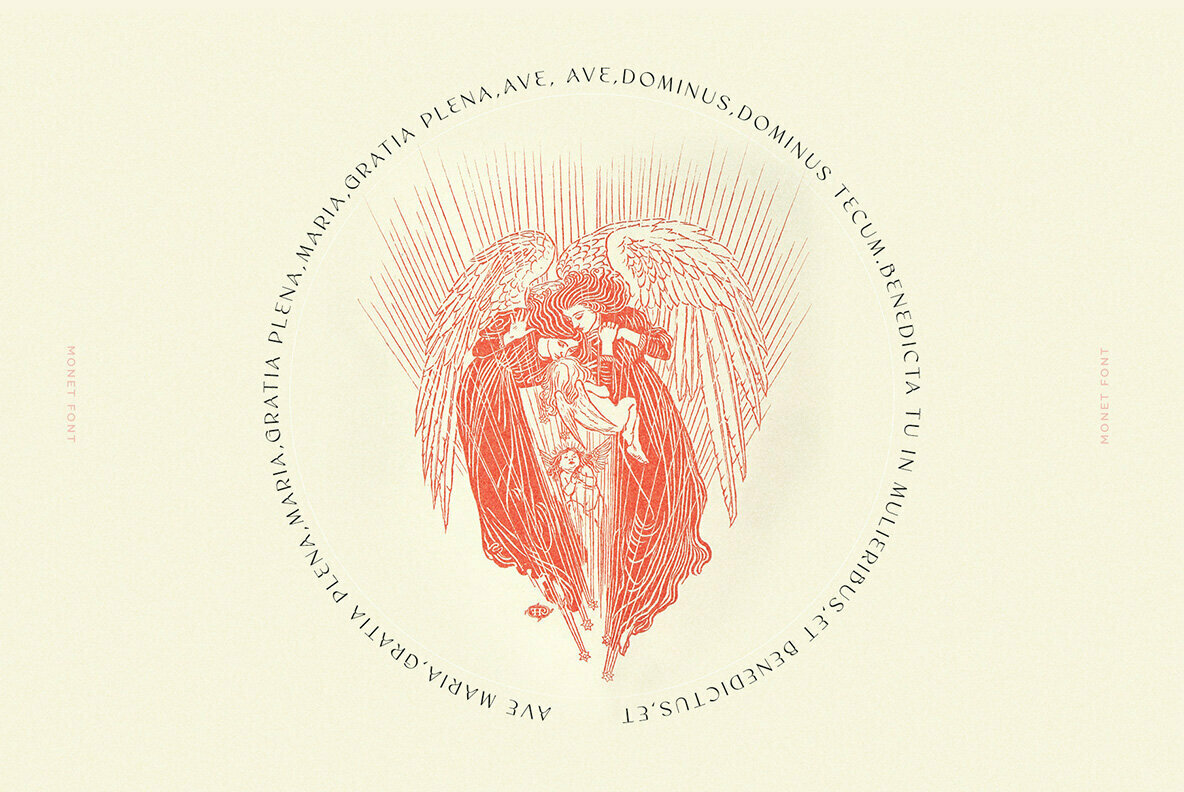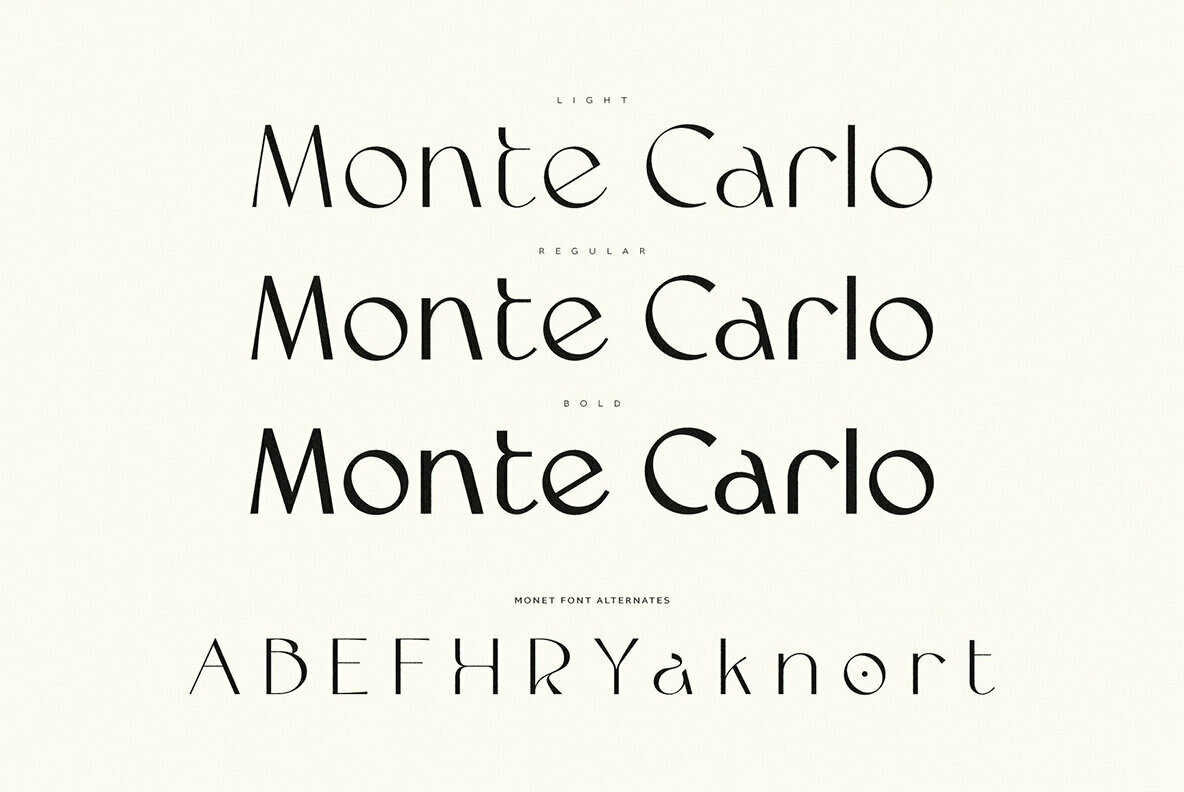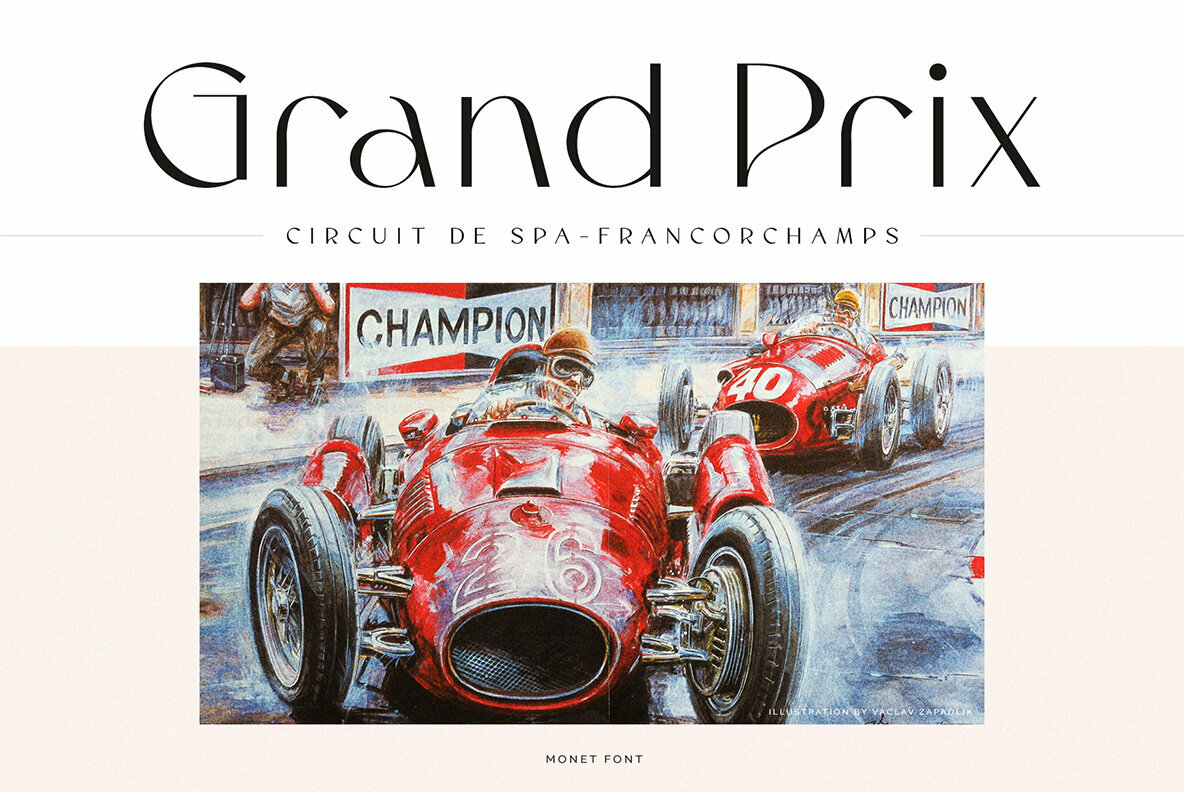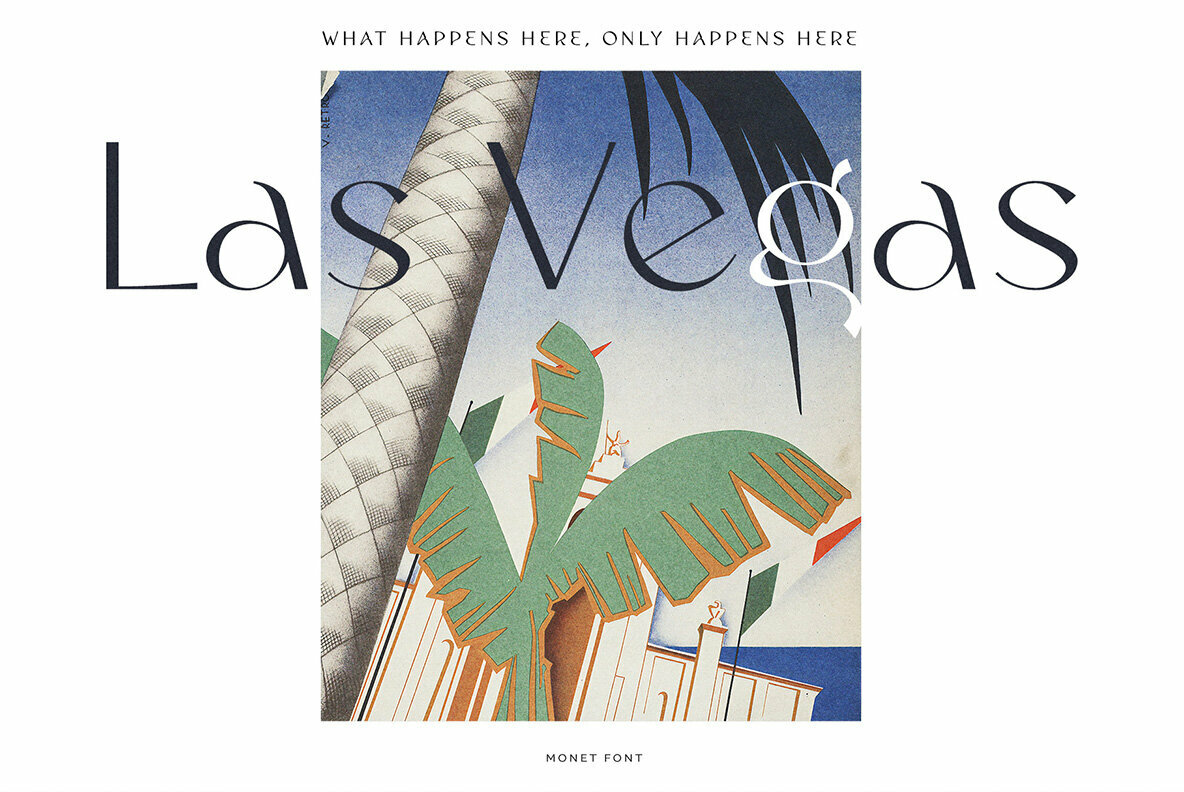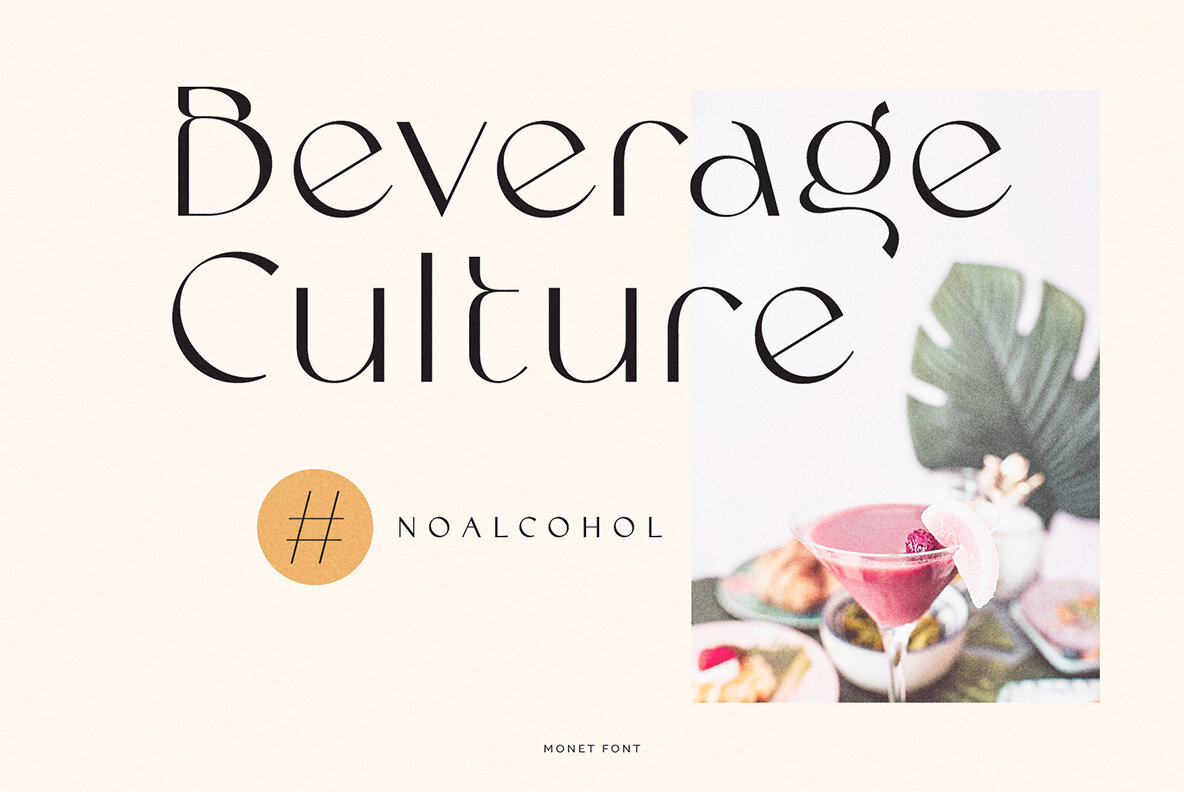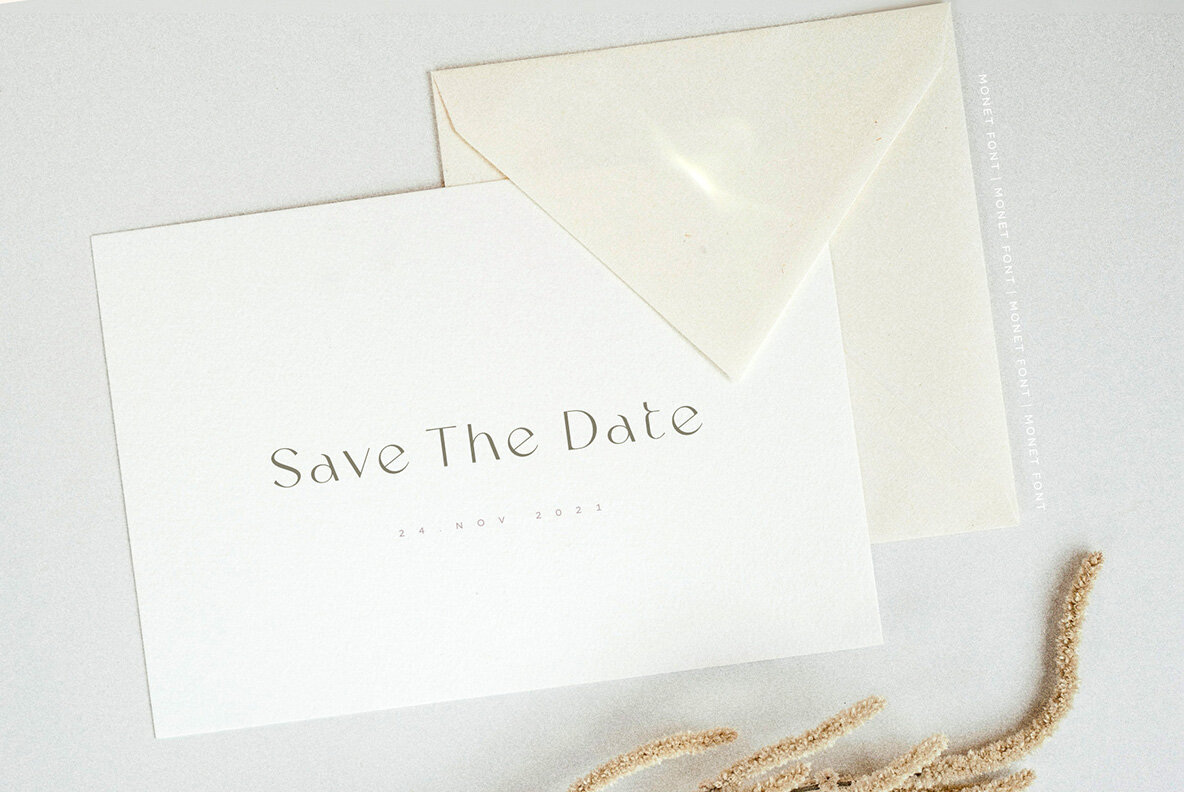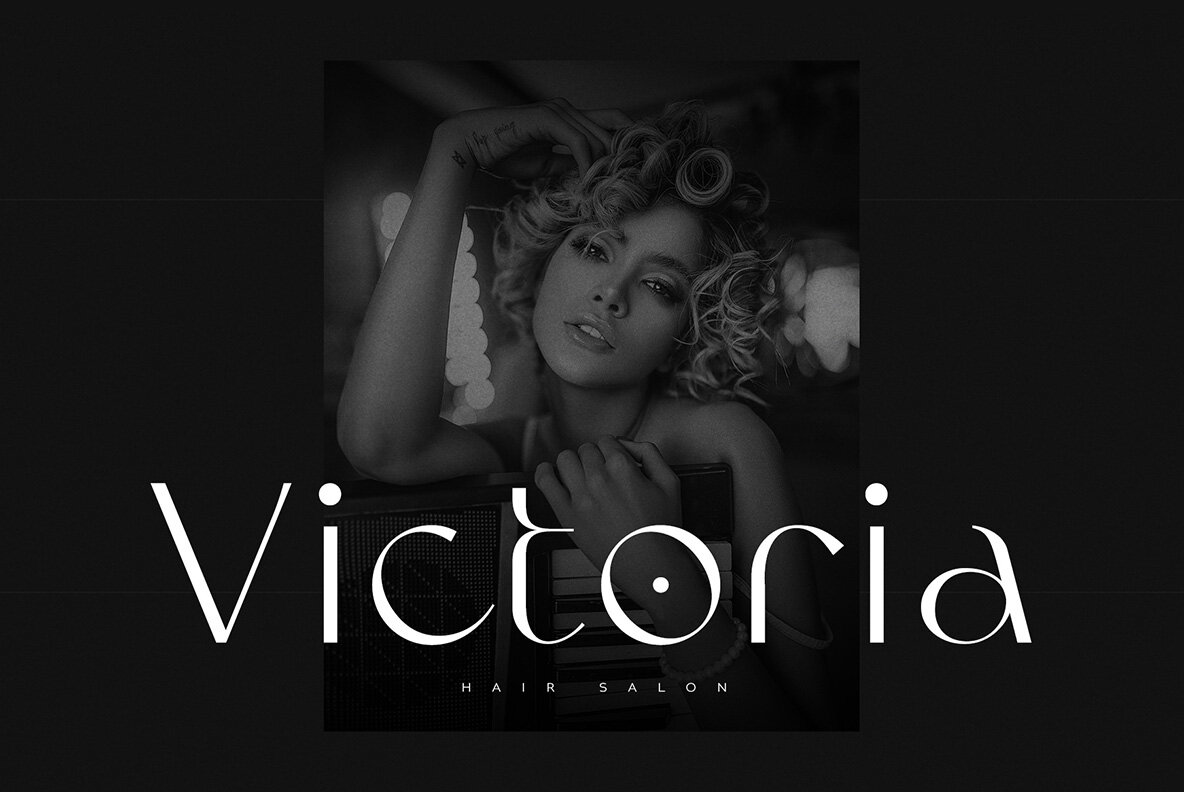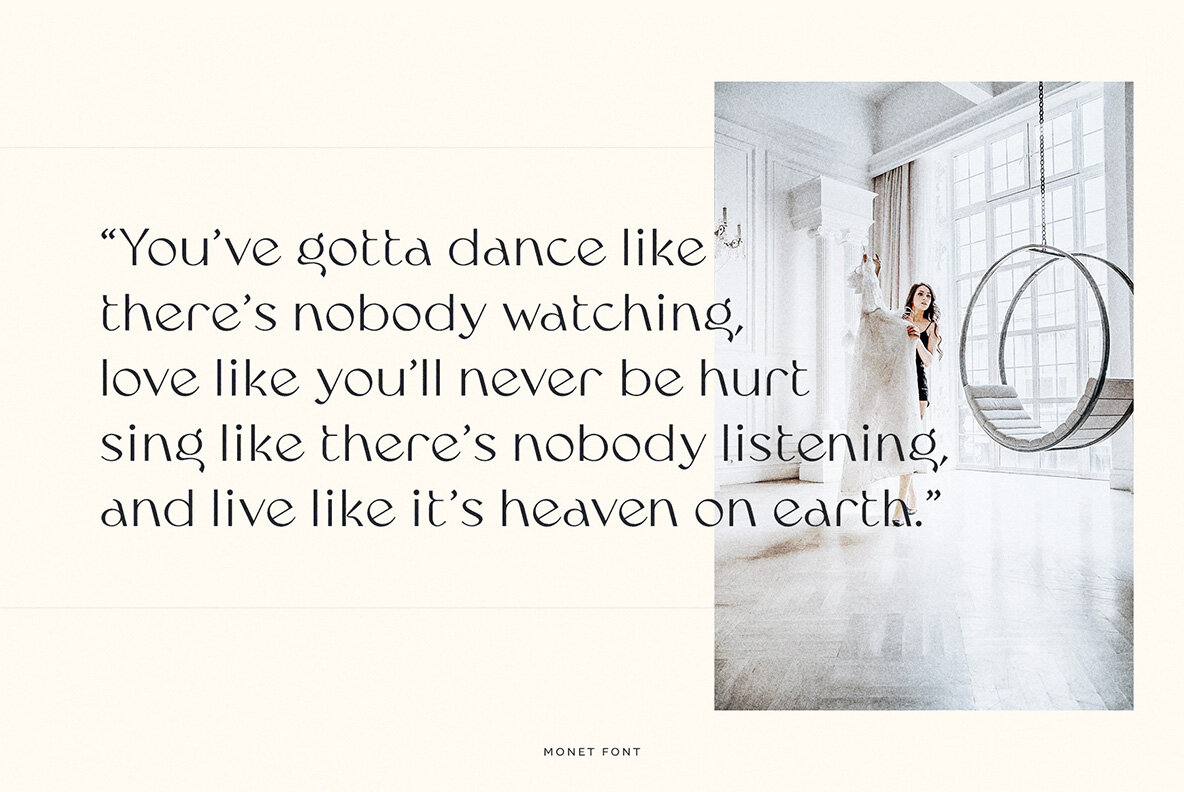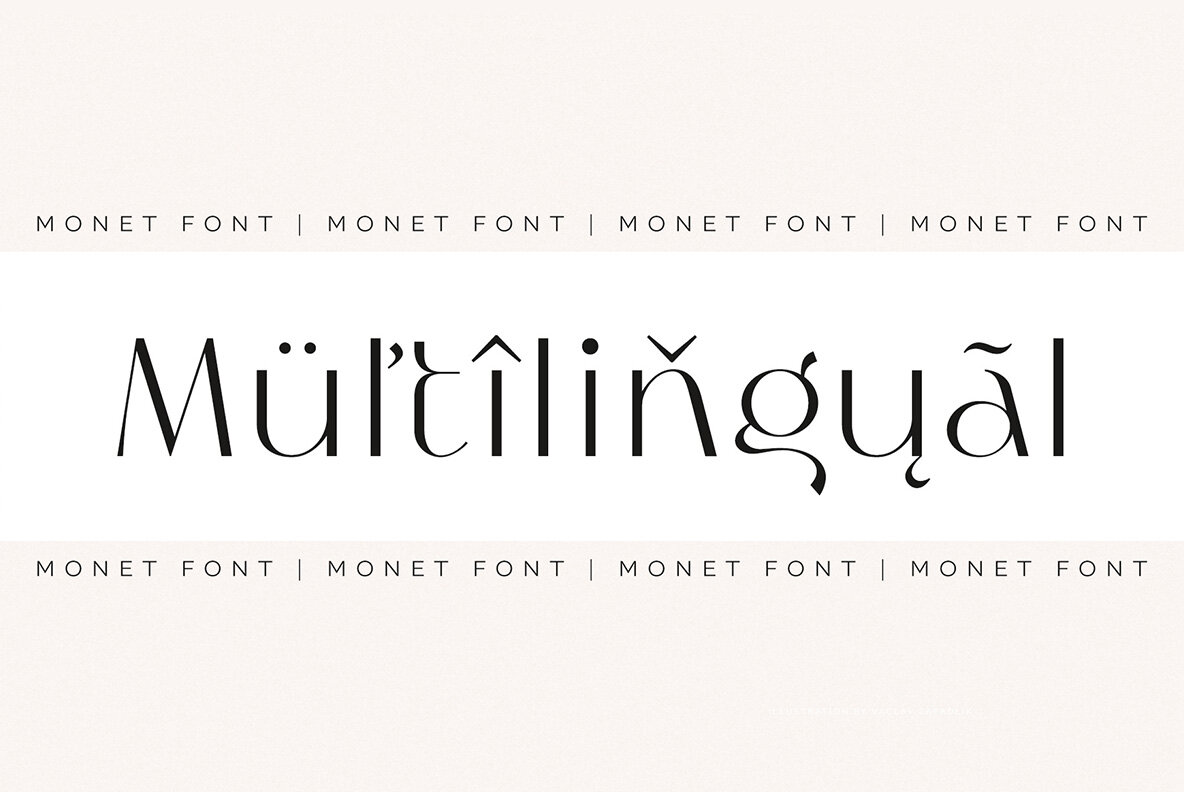
Monet Font
Crafted with a flair for the dramatic, the Monet font by Ivan Rosenberg is your go-to choice for headlines, titles, and captivating short texts. Perfectly suited for a range of creative applications, Monet excels in advertising, vintage-inspired mood boards, branding endeavors, logotypes, packaging, and editorial designs. Whether your project leans towards the contemporary or the nostalgic, this font embodies a unique versatility. Features: Monet supports a wide array of languages, making it a robust tool for creators across the globe. From English to Maori, French to Swahili, its typographic capabilities embrace a multitude of linguistic needs. Elevate your design potential with Monet's expansive language support.Monet: A Typeface for Versatile Display